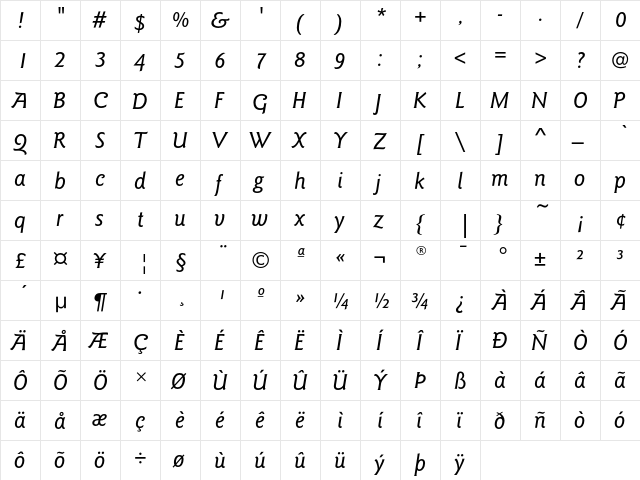
GoudySansEF MediumItalic Font Preview
GoudySansEF MediumItalic
Design Context for GoudySansEF Typeface
GoudySansEF is a composed and adaptable typeface that performs quietly and consistently across a wide range of design contexts. The slanted form adds forward momentum and visual energy.
Pro Tip: Try GoudySansEF for annotation and caption copy alongside an upright companion — the contrast in angle creates a dynamic but ordered typographic system.